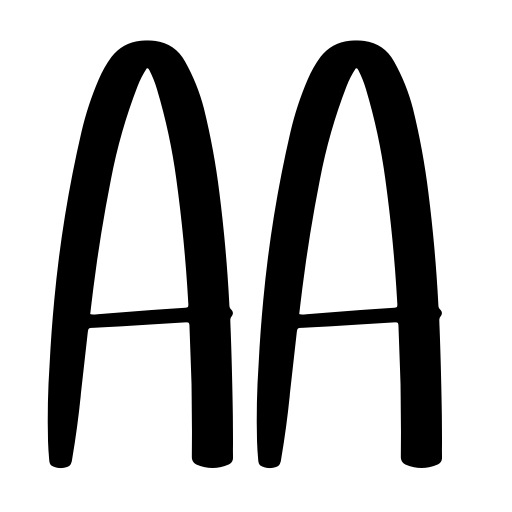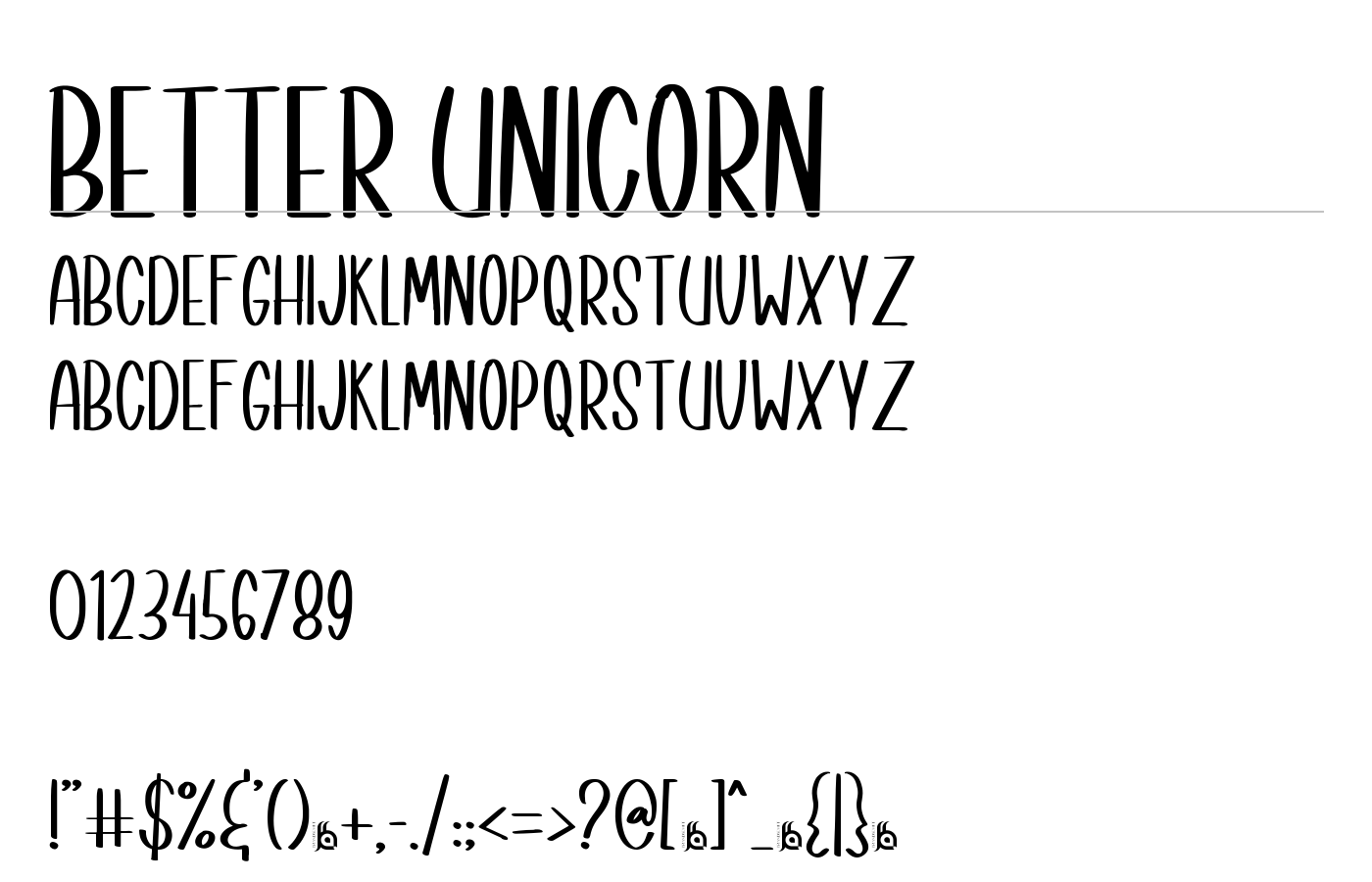
Better Unicorn is a playful and quirky sans serif font with tall, narrow letterforms that give it a whimsical and hand-drawn charm. Its uneven strokes and slight irregularities create a friendly, informal vibe, making it perfect for creative projects, children’s branding, and casual headlines where a fun and approachable feel is desired. The font’s unique personality shines in logos and playful editorial layouts, adding a spirited touch without sacrificing readability.
Better Unicorn Font
About Better Unicorn Font
| Font family | Better Unicorn Font |
| Designer | BrandSemut |